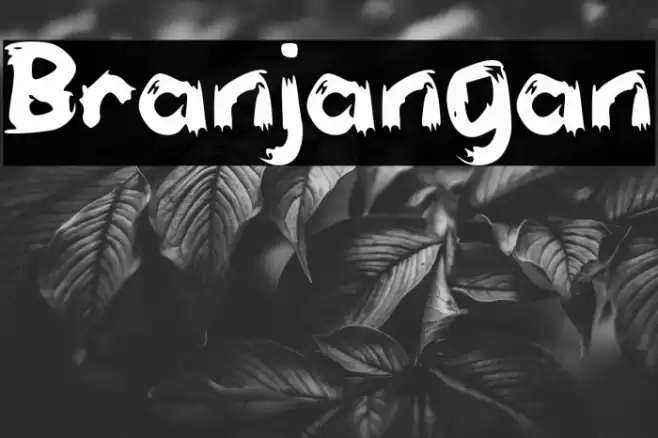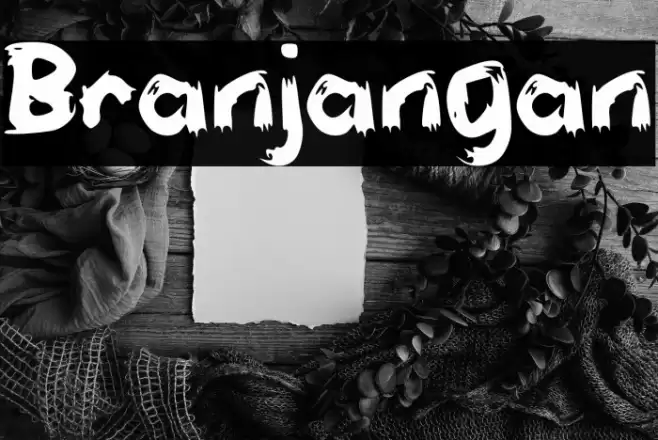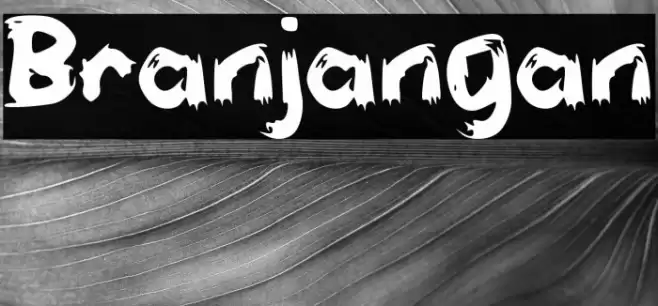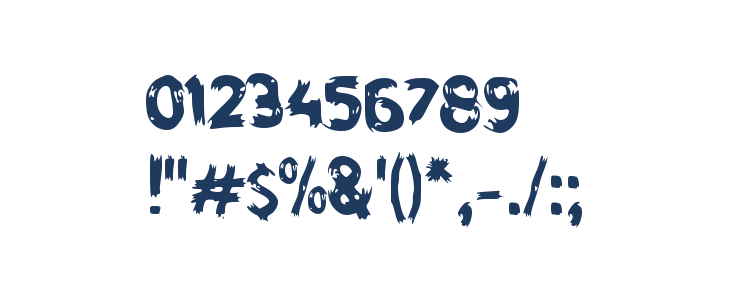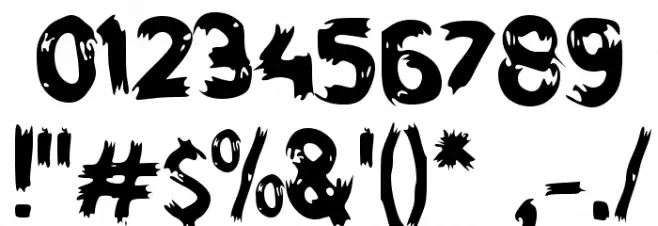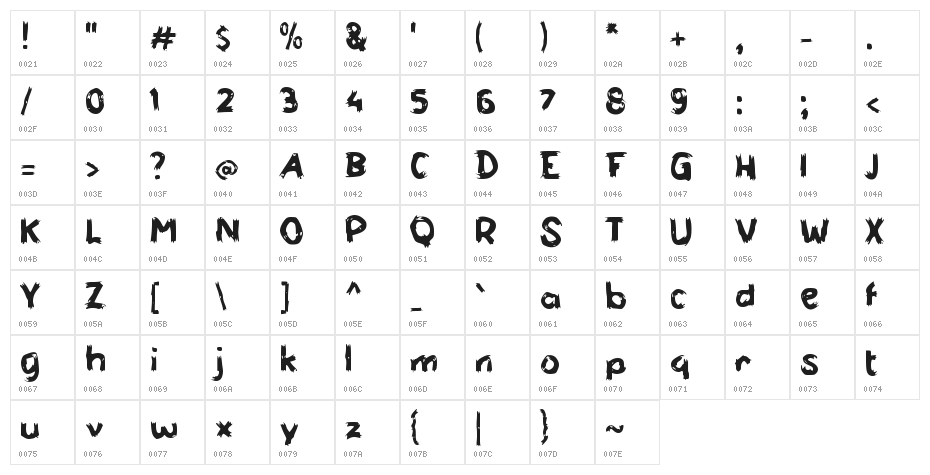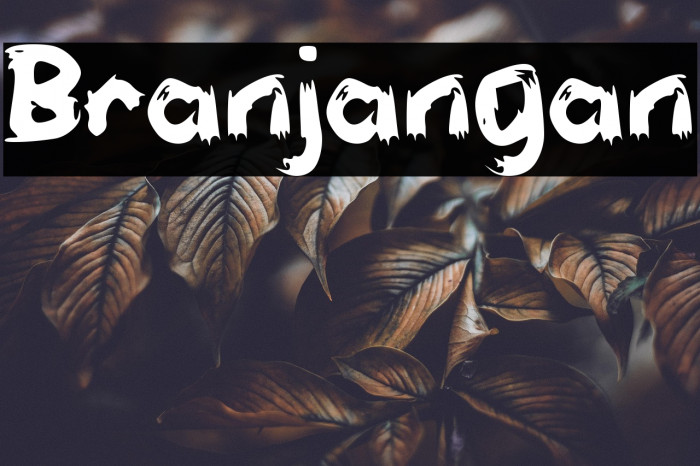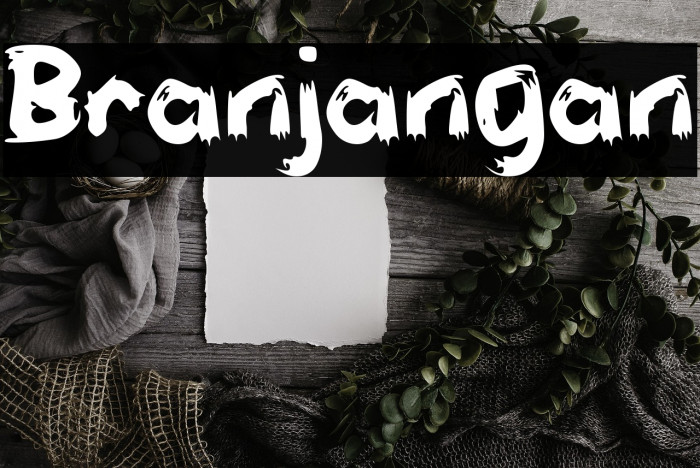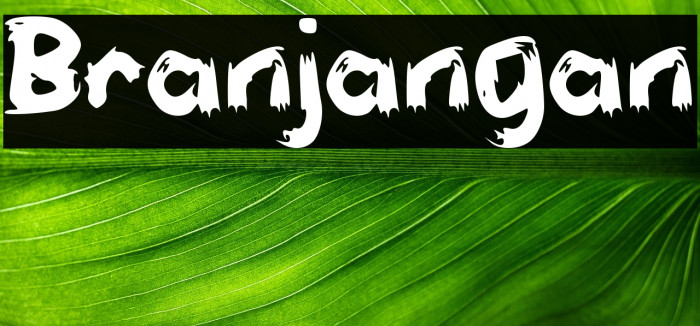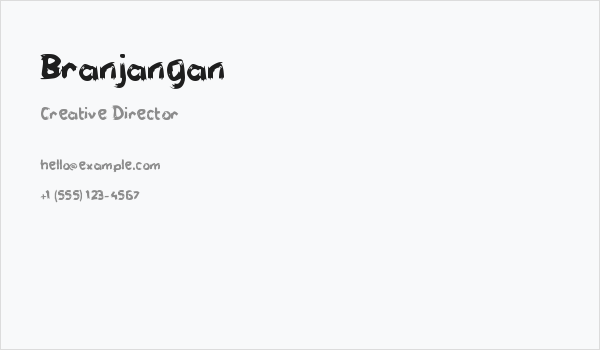
Branjangan Font
Branjangan Description
This font exhibits a bold and dynamic style with a distressed, grunge-like appearance. The characters are heavily stylized, featuring jagged edges and irregular shapes that give them a raw, edgy look. The uppercase and lowercase letters maintain a consistent theme, with each character appearing as if it has been roughly carved or eroded. The numbers and special characters follow the same design principles, ensuring a cohesive visual experience across all glyphs. This font's unique aesthetic makes it stand out, offering a sense of movement and energy that can capture attention and convey a sense of rebellion or nonconformity.
A bold, distressed font with jagged edges and a grunge-like appearance from Uncategorized fonts.
- Proposed Projects: Ideal for music album covers, edgy posters, streetwear branding, or any project requiring a rebellious, raw aesthetic.